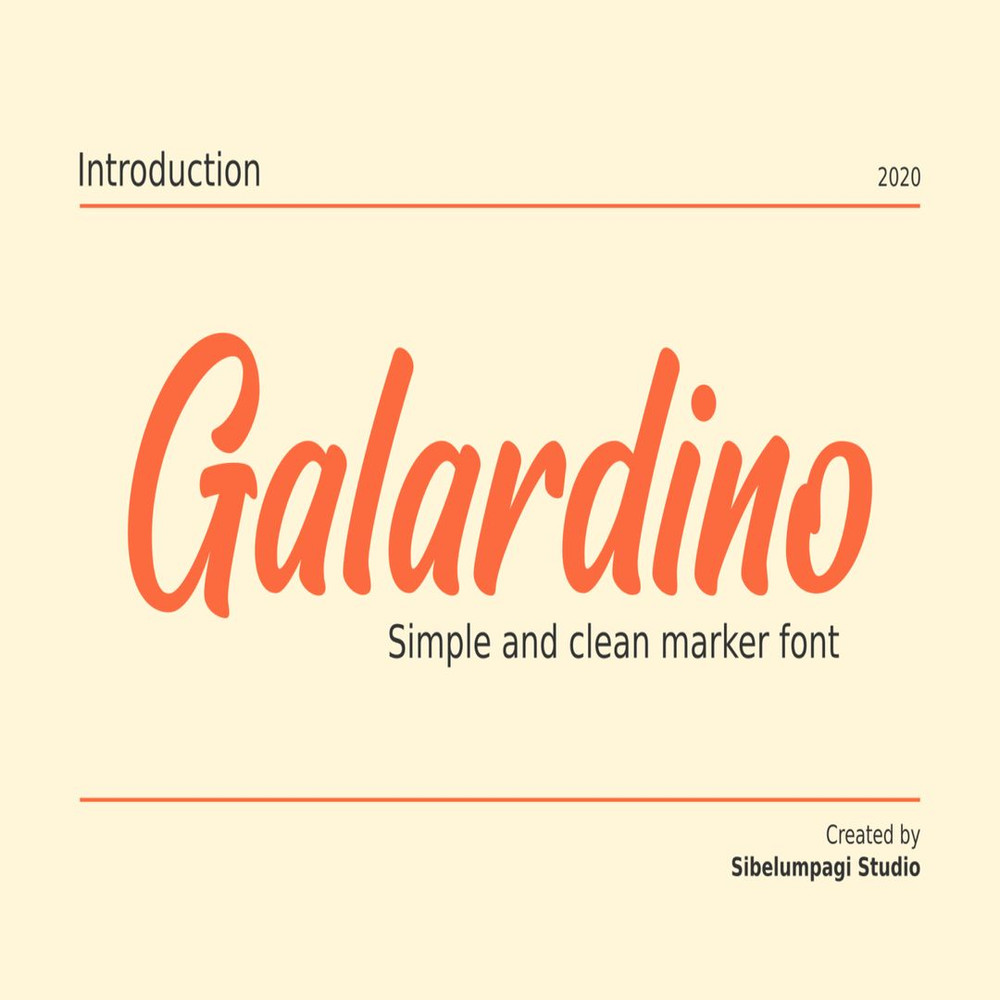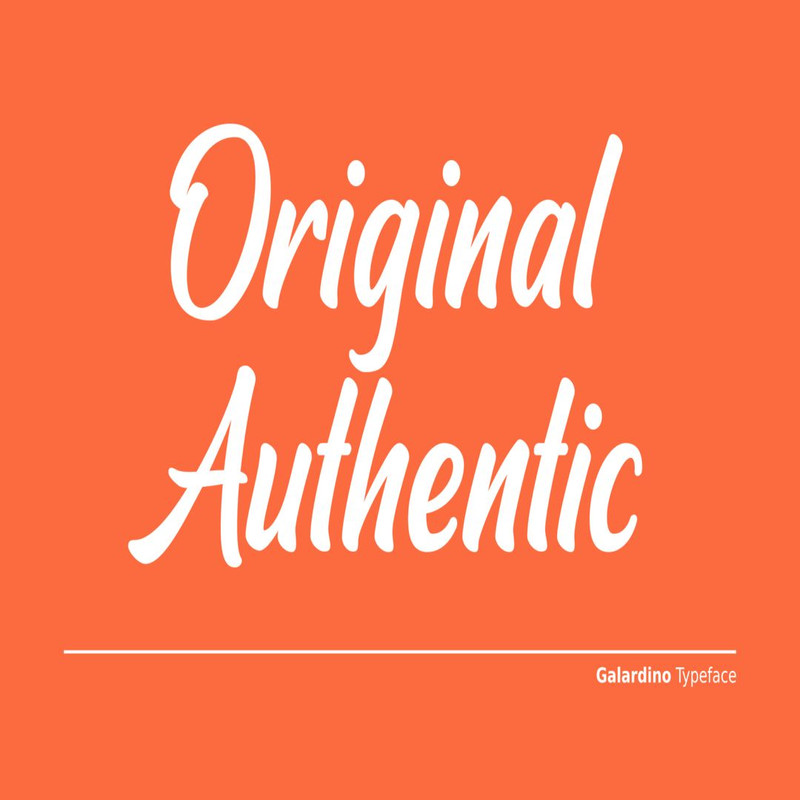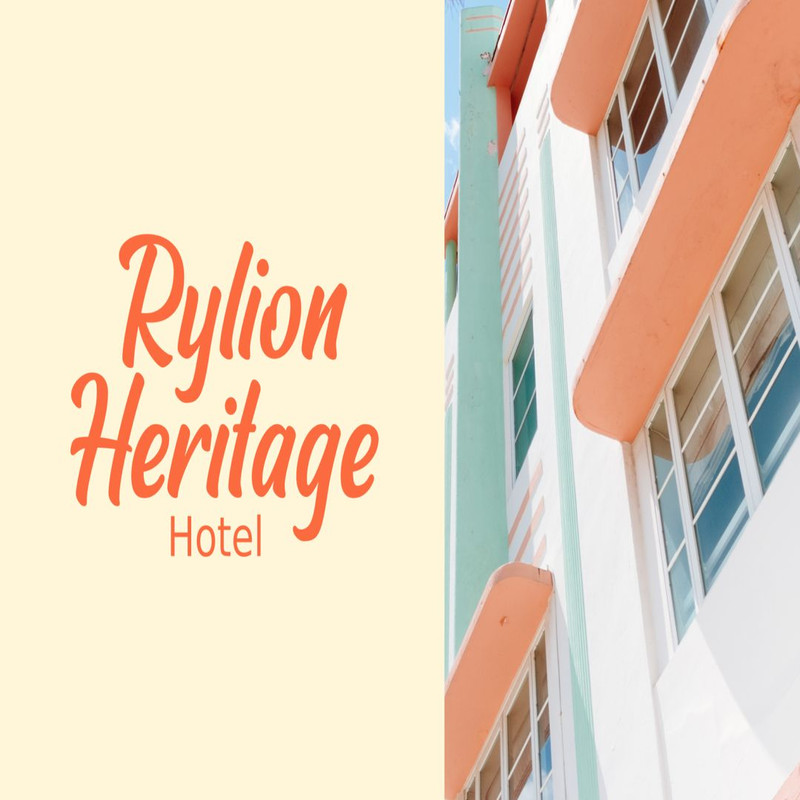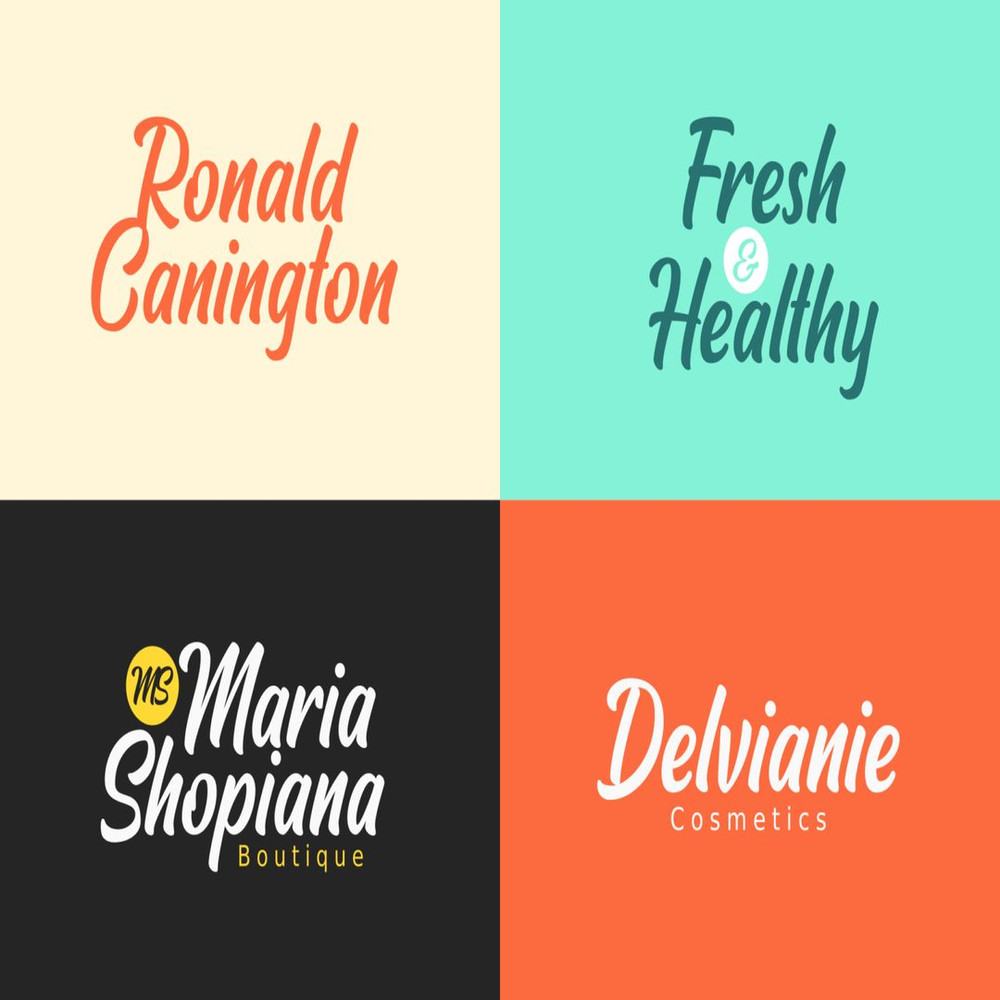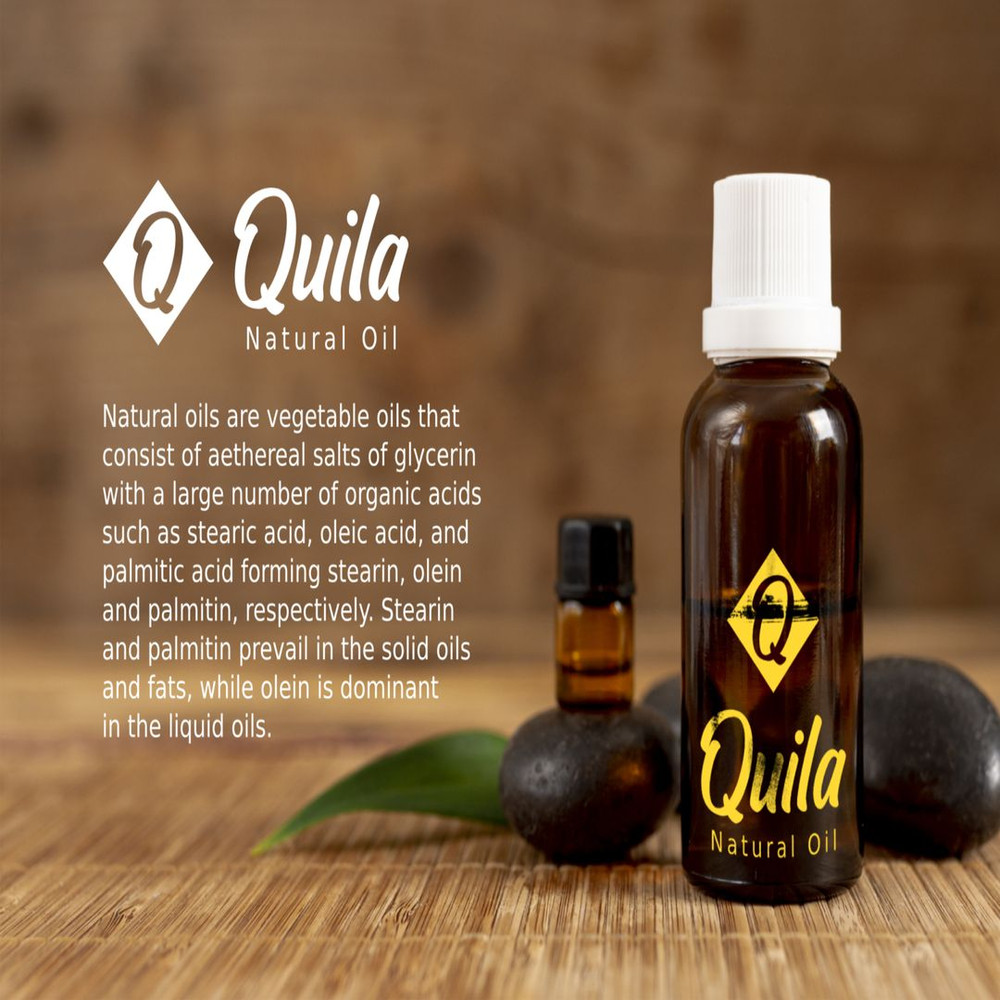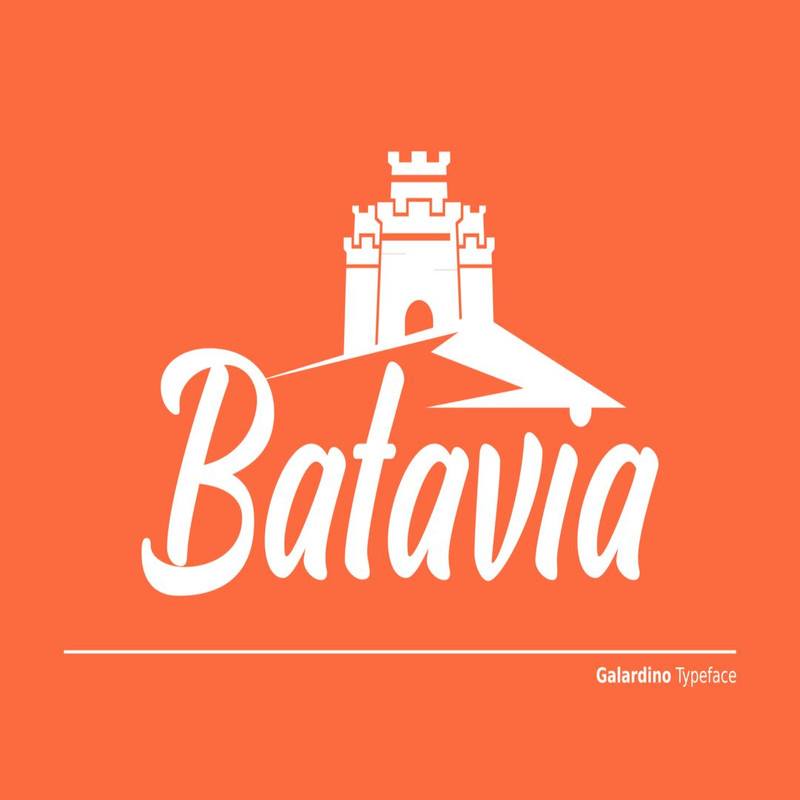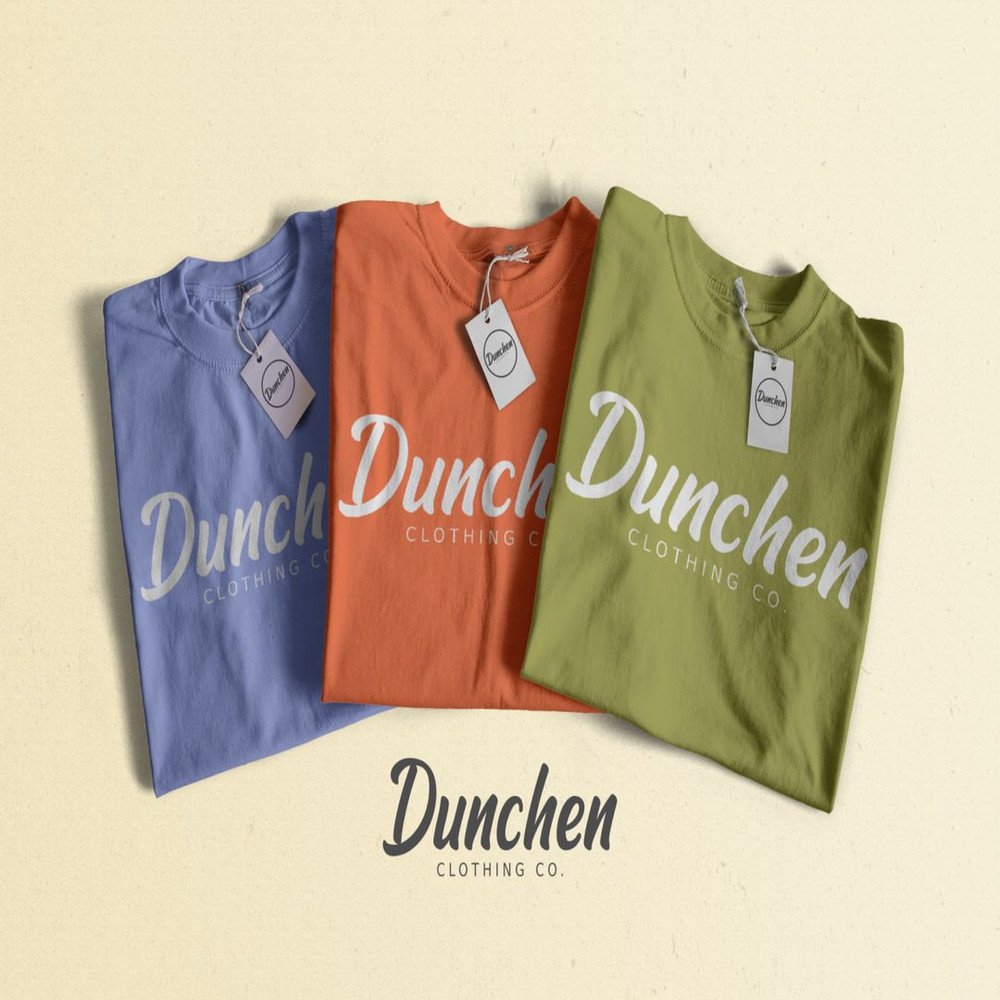
Galardino is a clean and simple marker font, it has a unique style based on the handwritten look.
Galardino font would be good for branding, logotype, poster, badge, book cover, invitation, t-shirt design, packaging, and many more.
Galardino is a clean and simple marker font, it has a unique style based on the handwritten look.
Galardino font would be good for branding, logotype, poster, badge, book cover, invitation, t-shirt design, packaging, and many more.
Galardino is a clean and simple marker font, it has a unique style based on the handwritten look.
Galardino font would be good for branding, logotype, poster, badge, book cover, invitation, t-shirt design, packaging, and many more.
Galardino is a clean and simple marker font, it has a unique style based on the handwritten look.
Galardino font would be good for branding, logotype, poster, badge, book cover, invitation, t-shirt design, packaging, and many more.